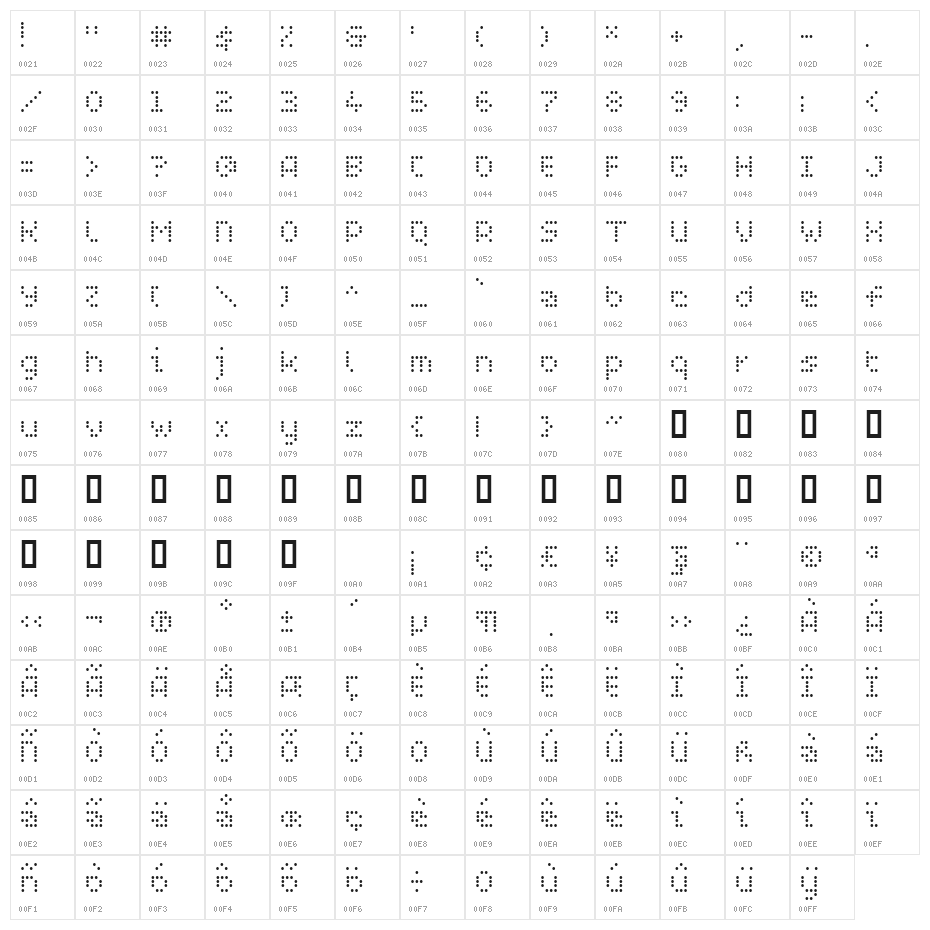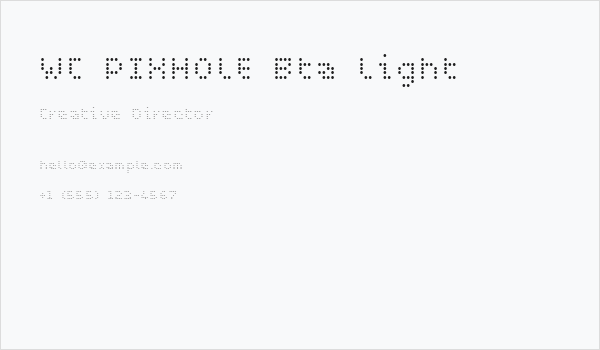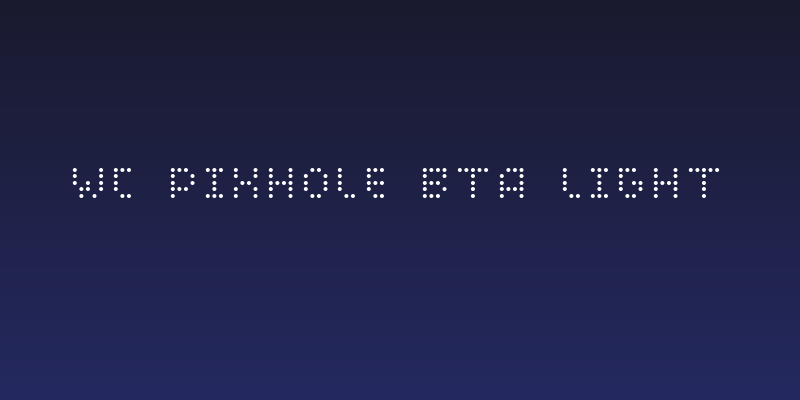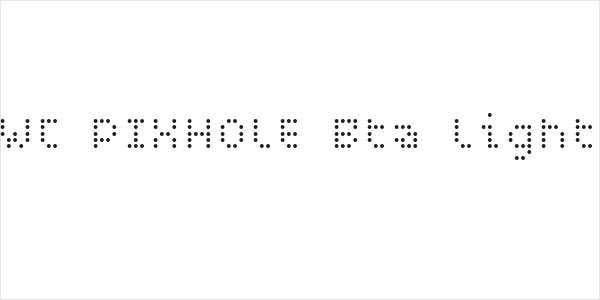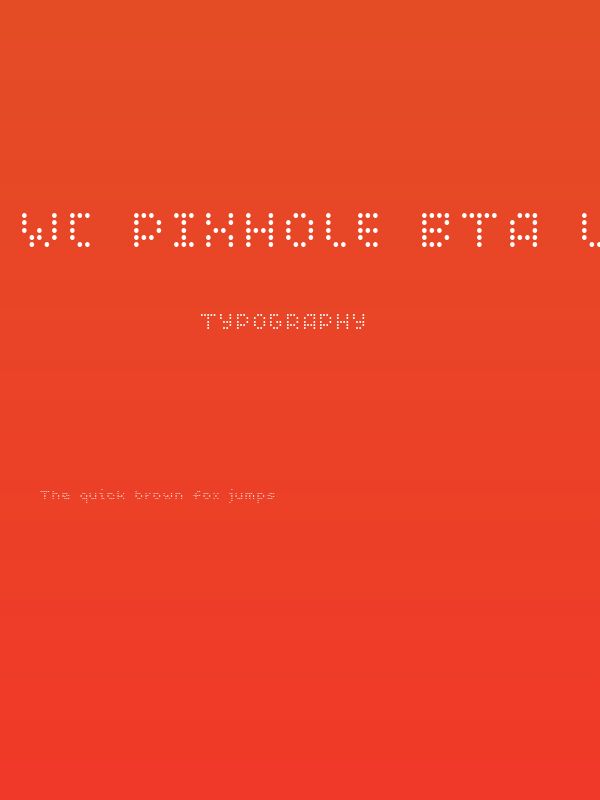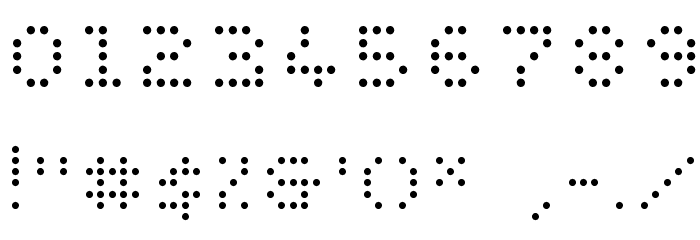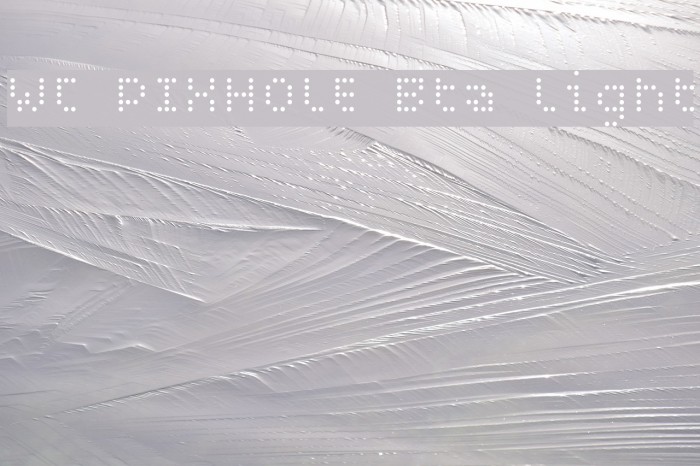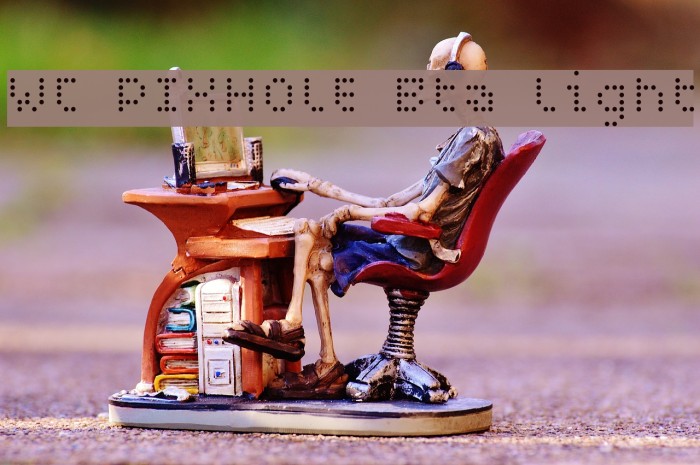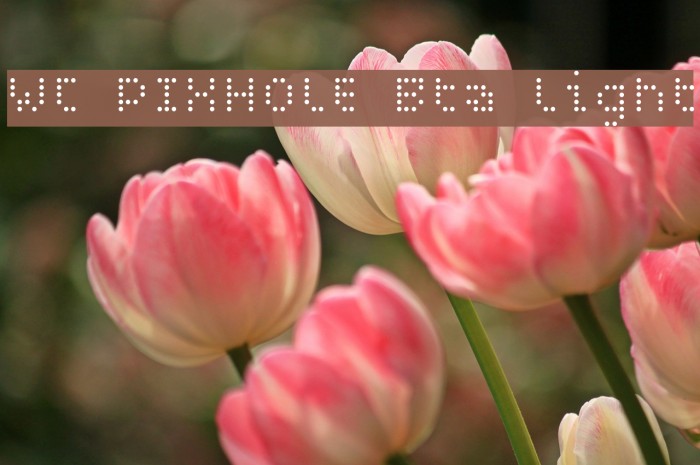
WC PIXHOLE Bta Light Font
WC PIXHOLE Bta Light Description
This font features a unique dotted design, where each character is composed of a series of evenly spaced dots. The style is reminiscent of digital or pixelated text, offering a modern and tech-inspired aesthetic. The characters maintain a consistent structure, with each letter and number clearly distinguishable despite the unconventional design. The font is particularly effective in creating a futuristic or digital feel, making it suitable for projects that aim to convey innovation or technology. The spacing between the dots is uniform, contributing to a clean and organized appearance. This font is ideal for creative projects where a distinctive and eye-catching typeface is desired.
| Use Case | Logos, Headlines, Digital Art |
| Proposed Projects | Ideal for digital art, tech-themed posters, innovative branding, and futuristic designs. |